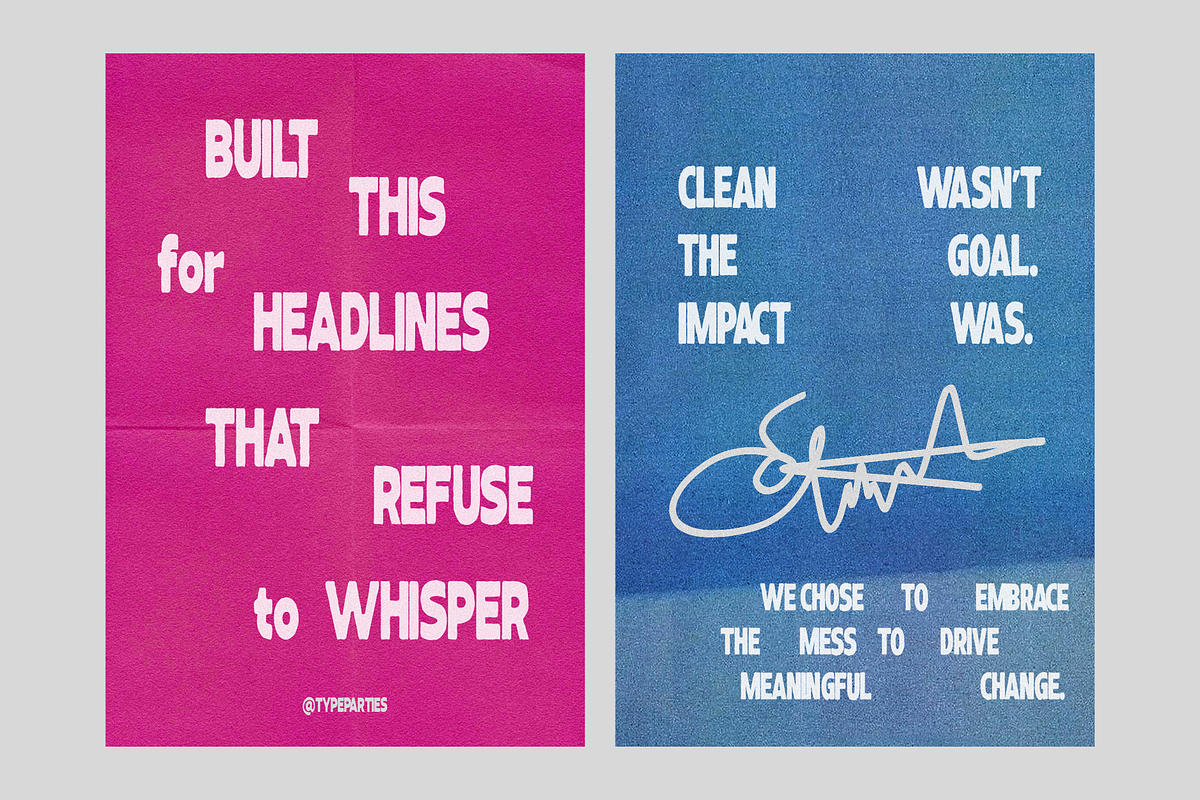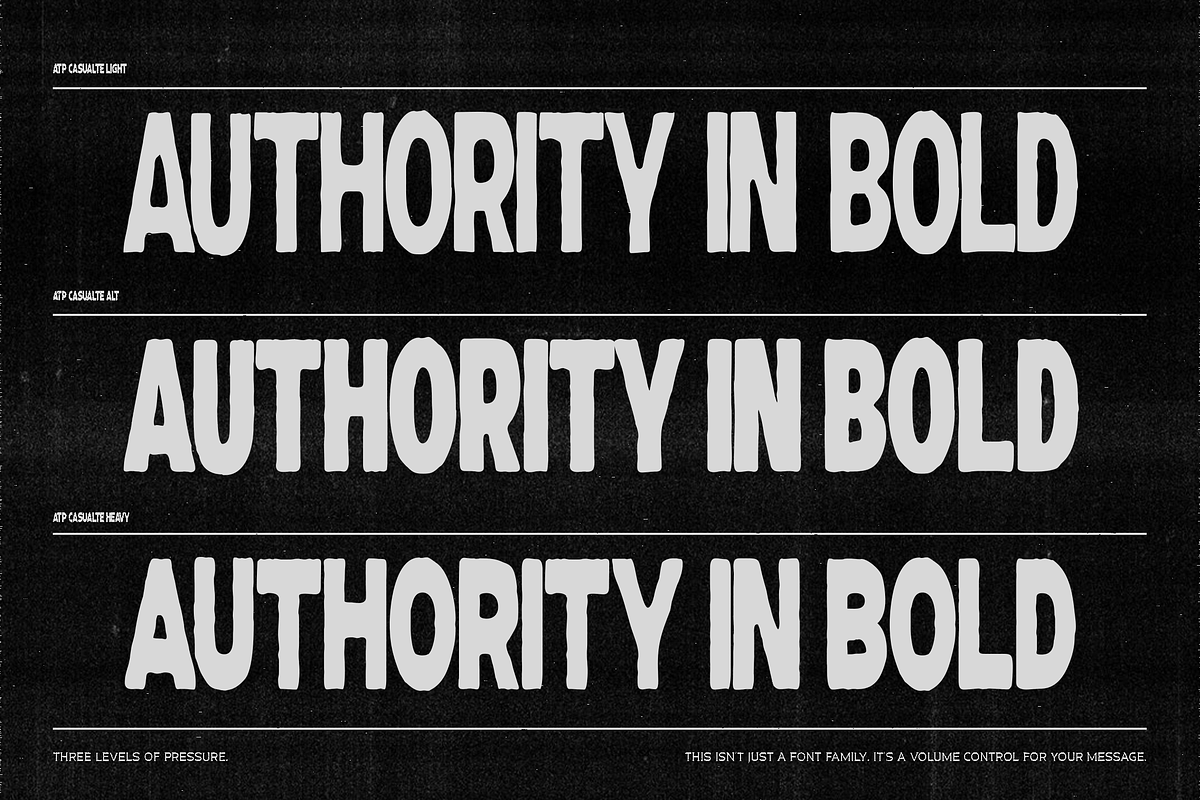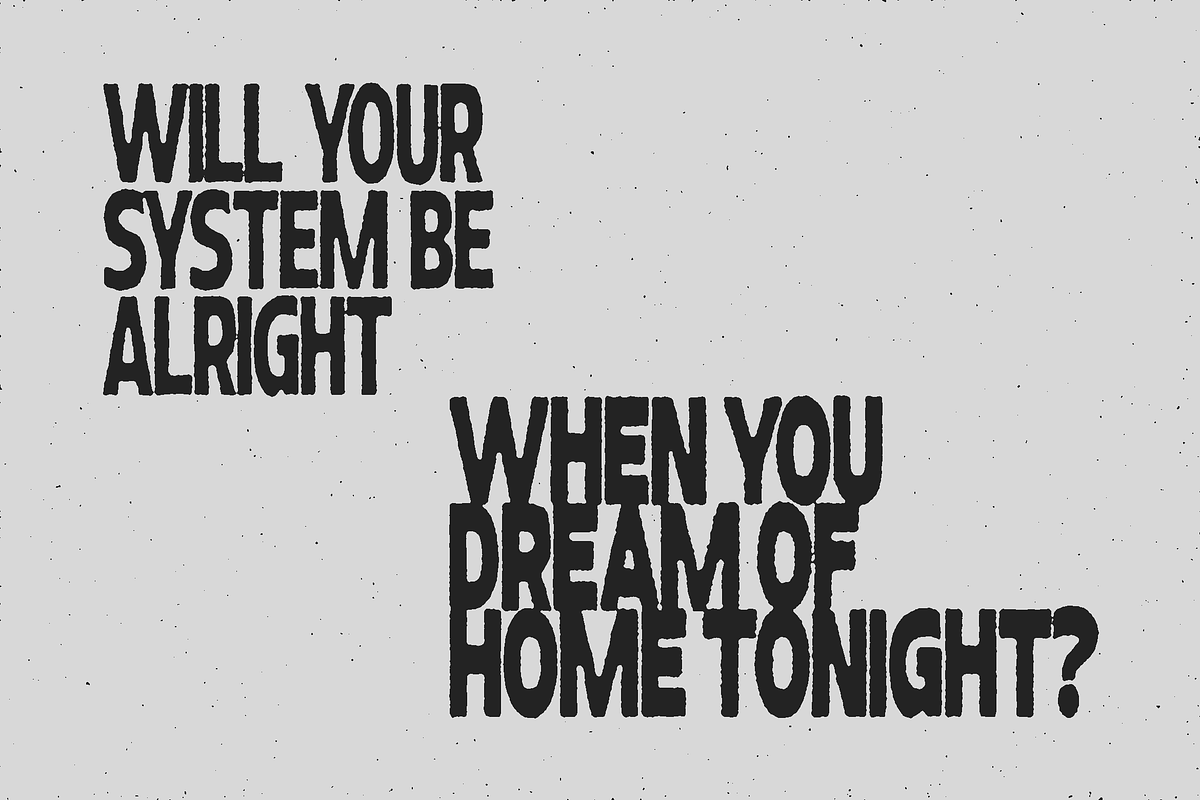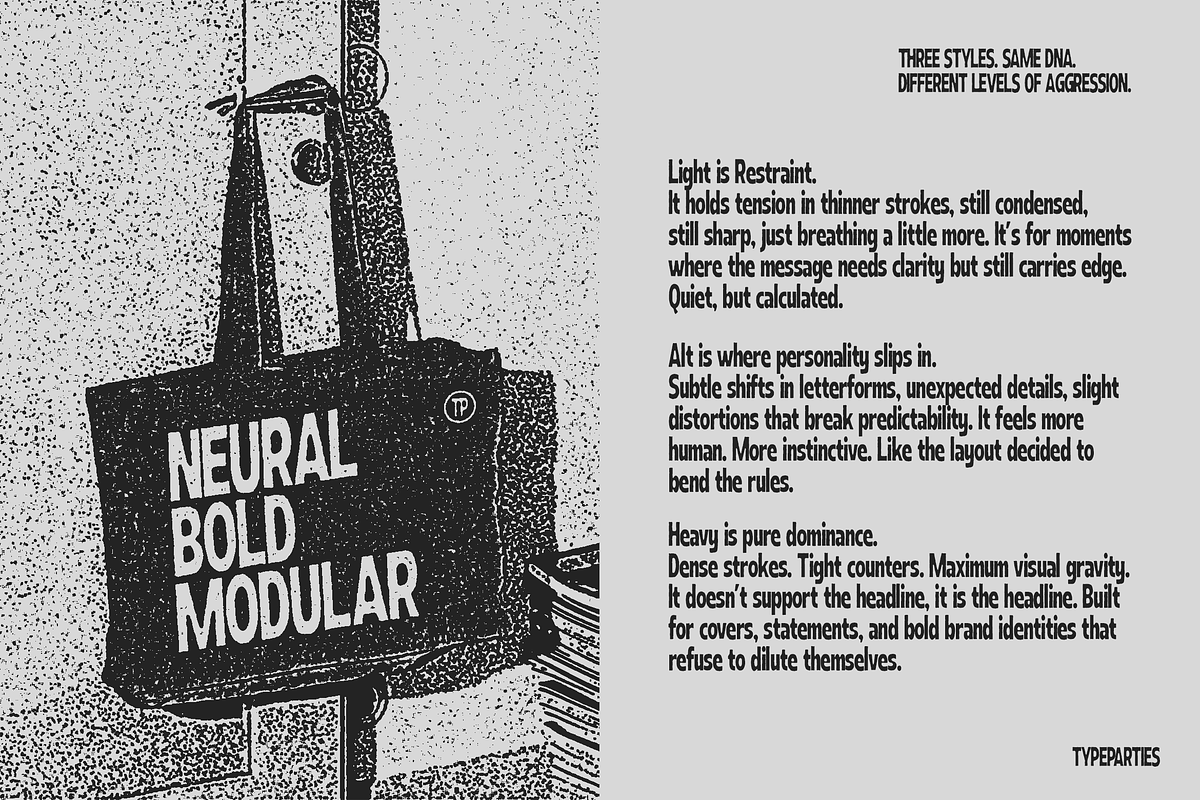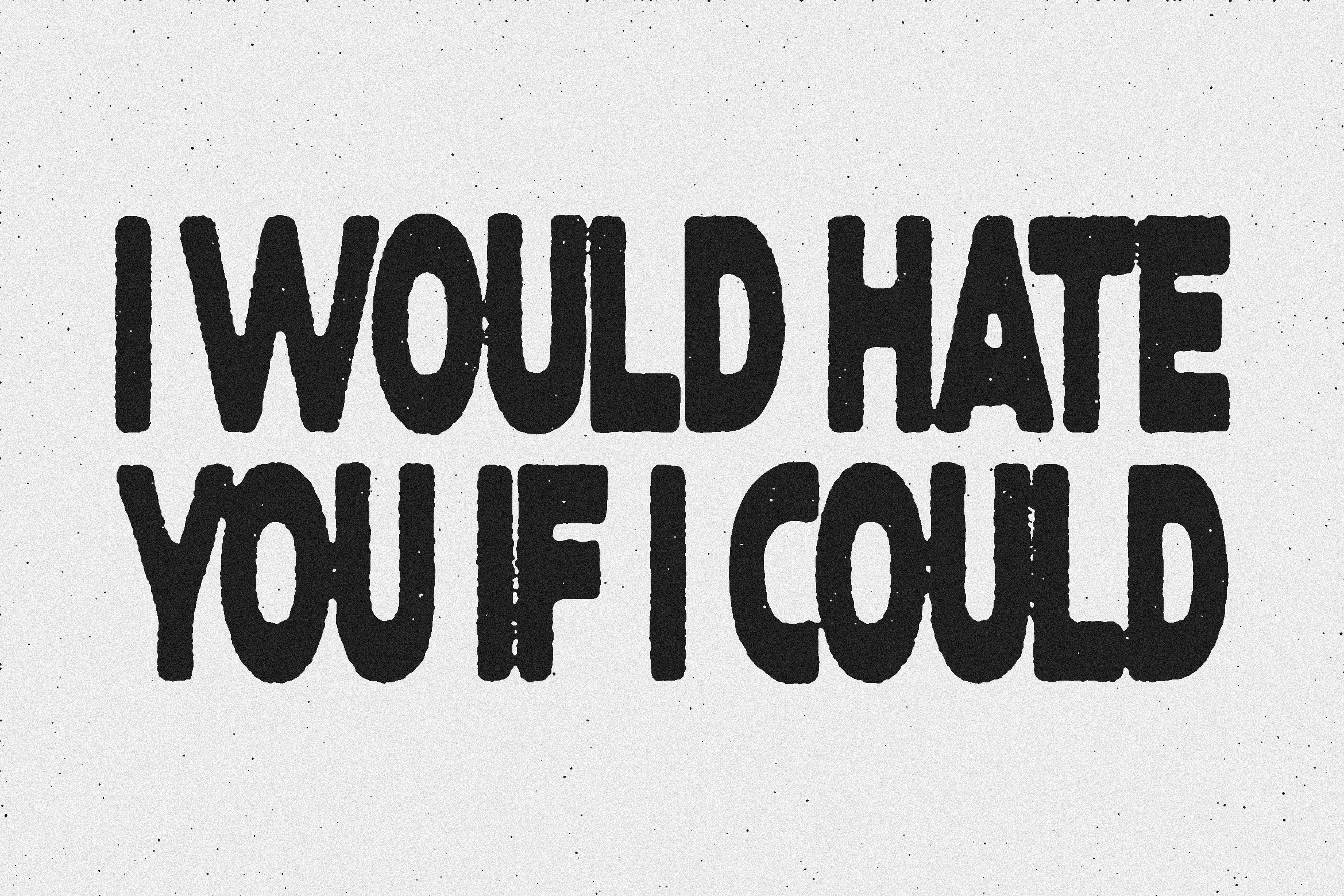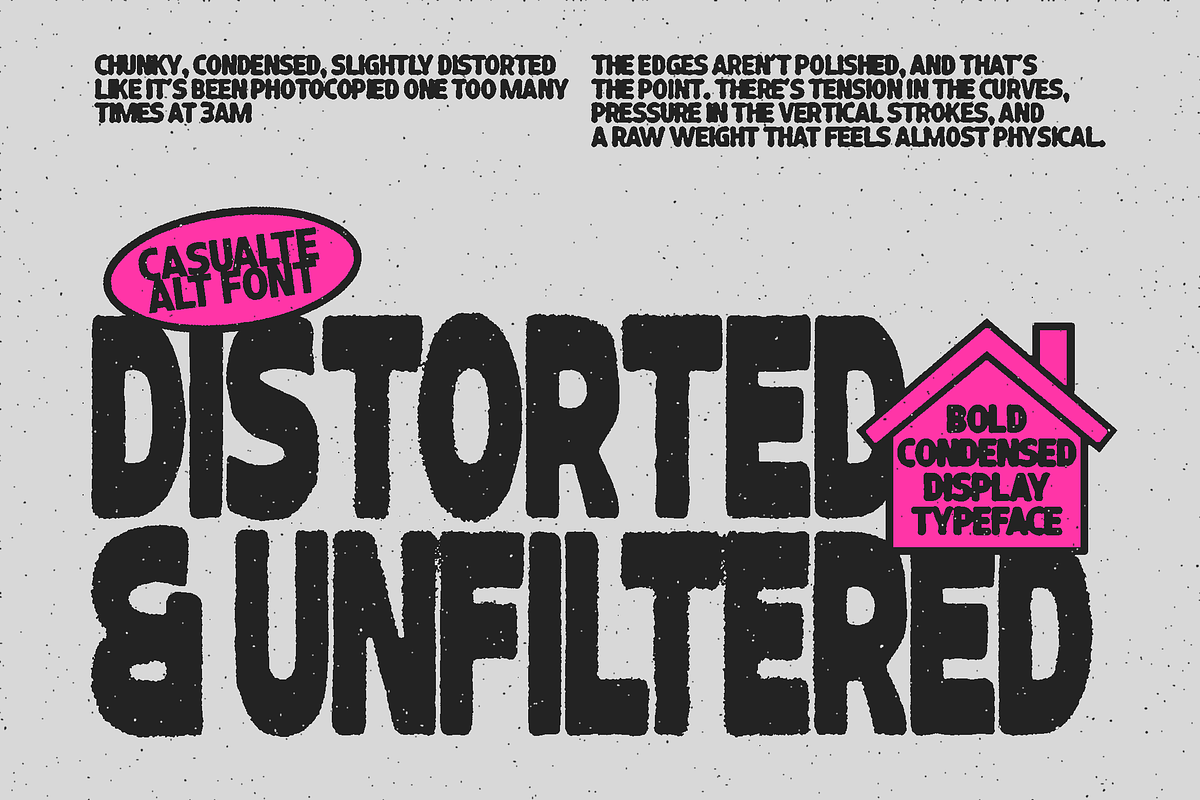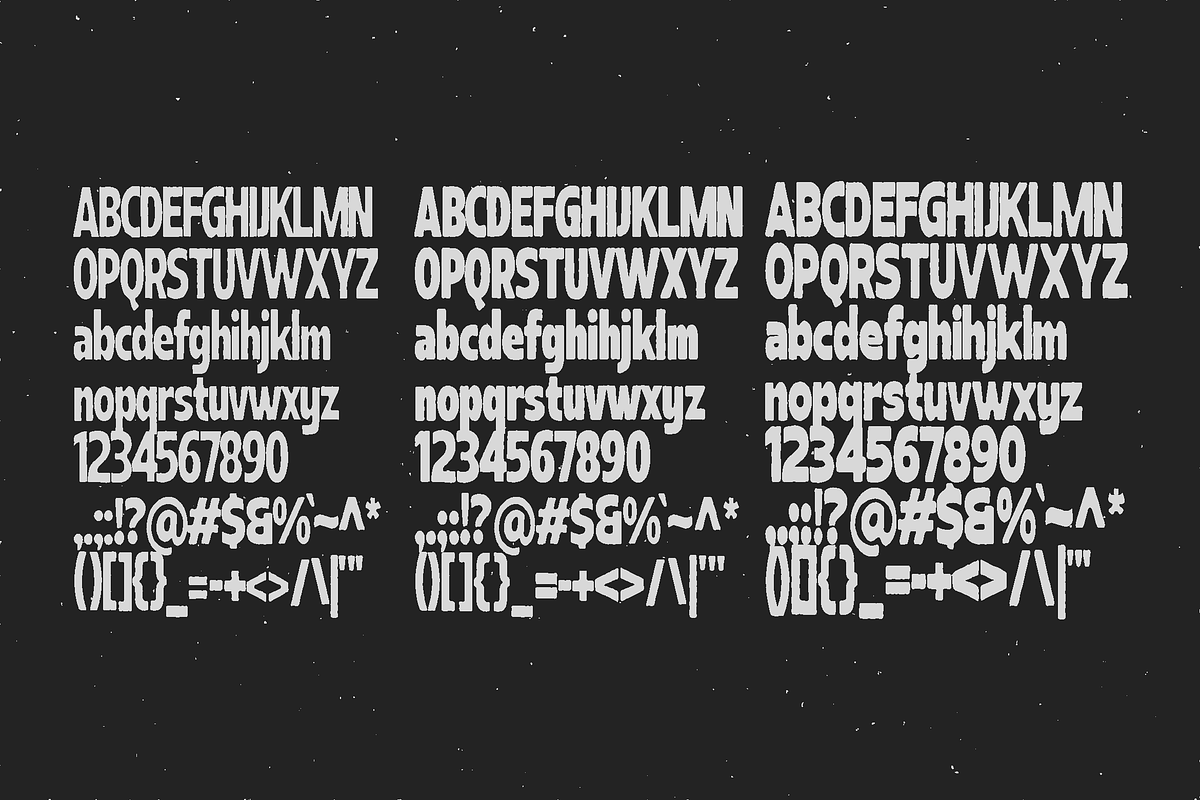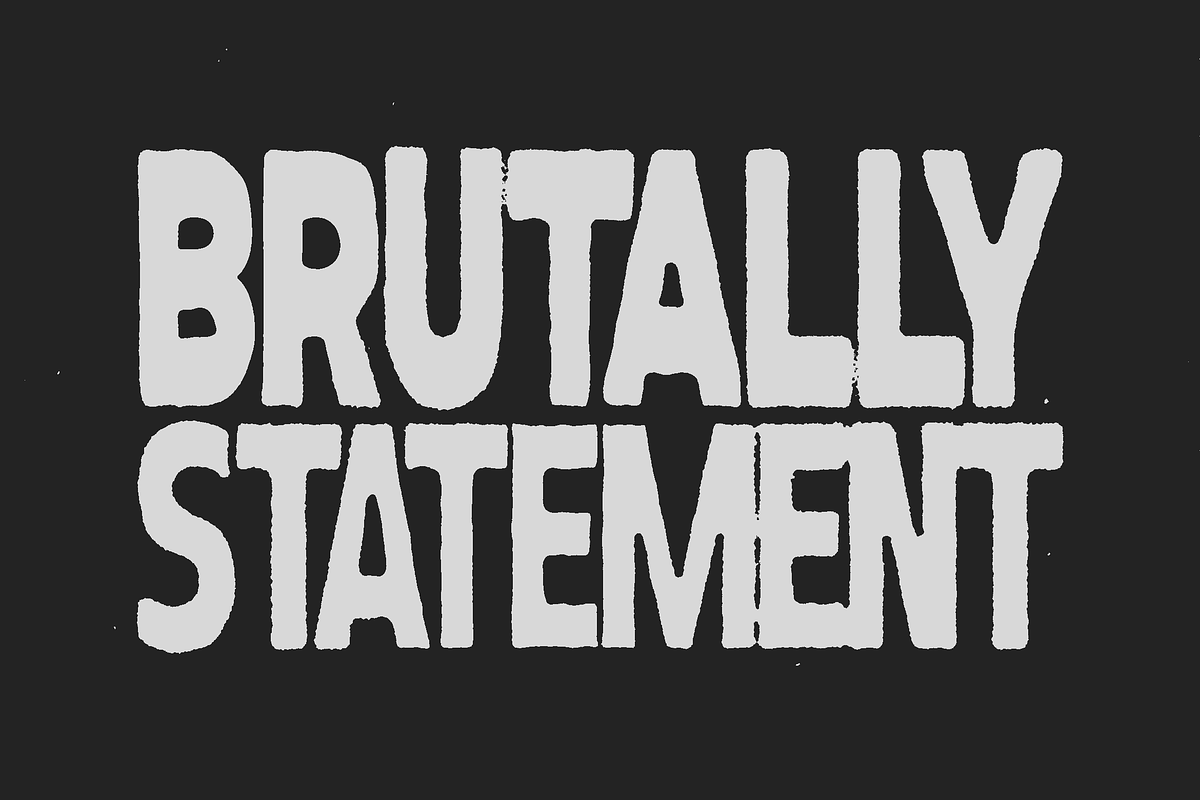
Casualte Alt - Bold Condensed Font
This typeface doesn’t ask for attention. It takes it.
Chunky. Condensed. Slightly distorted like it’s been photocopied one too many times at 3AM. The edges aren’t polished, and that’s the point. There’s tension in the curves, pressure in the vertical strokes, and a raw weight that feels almost physical.
It reads like a headline that’s done being polite.
Technically, it sits in the realm of a bold condensed display sans serif, but emotionally? It’s protest ink. It’s basement gig posters. It’s underground editorials printed on cheap paper with expensive opinions.
The tight counters and compact structure create density, making every word feel packed and intentional. The subtle irregularity in the outlines adds grit, preventing it from feeling digital-perfect. It has that hand-shaped distortion that makes layouts feel alive, not templated.
This typeface comes in three distinct styles, each one carrying a different level of intensity.